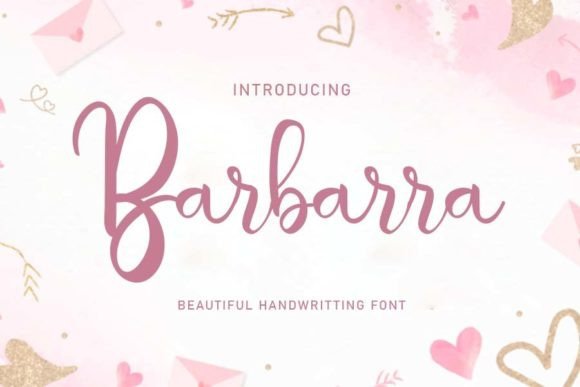
Discover the Elegance of Barbarra Font: Elevate Your Designs with this Beautiful Handwritten Typeface
In the world of typography, few fonts manage to capture the essence of elegance and femininity as beautifully as the Barbarra Font. This stunning handwritten typeface is a gem for designers and crafters looking to add a touch of sophistication and charm to their projects. Whether you’re creating logos, invitations, blogs, or simply want to make a striking headline, Barbarra Font is an excellent choice. In this article, we’ll dive into the details of what makes Barbarra Font special and how you can incorporate it into your creative endeavors.
The Beauty of Barbarra Font
Barbarra Font is characterized by its flowing, cursive script that exudes a sense of grace and refinement. Its elegant strokes and beautiful letterforms make it a versatile font suitable for a wide range of applications. From wedding invitations and event posters to blog headers and branding, Barbarra Font adds a touch of class and sophistication that can elevate your designs to a new level.
Key Features of Barbarra Font
- Feminine and Elegant: The font’s design is deeply rooted in traditional calligraphy, offering a feminine touch that’s perfect for projects requiring a graceful look.
- Versatile: While it shines in logos and invitations, its legibility and style also make it suitable for headlines, quotes, and short paragraphs.
- Handwritten: The organic, handwritten nature of Barbarra Font gives it a personal and unique feel that can make your designs stand out.
- Easy to Read: Despite its elegant and cursive nature, Barbarra Font maintains a high level of readability, making it a practical choice for digital and print media.
Using Barbarra Font in Your Designs
Incorporating Barbarra Font into your projects is straightforward, thanks to its compatibility with various design software and platforms. Here are some ideas on how to make the most of this beautiful font:
Logos and Branding
For businesses or personal brands aiming to convey elegance and sophistication, Barbarra Font can be a fantastic choice for a logo. Its unique and memorable appearance can help your brand stand out in a crowded market.
Invitations and Event Materials
Whether you’re planning a wedding, a birthday party, or any other event, Barbarra Font can add a touch of luxury and personalization to your invitations and event materials.
Blogs and Digital Content
For bloggers and content creators, using Barbarra Font for headings or even body text can enhance the visual appeal of your website or social media posts, making your content more engaging to readers.
Tips for Working with Barbarra Font
- Pair it Wisely: When using Barbarra Font in your designs, consider pairing it with a simpler, sans-serif font for body text to create contrast and ensure readability.
- Adjust Size and Color: Don’t be afraid to experiment with different sizes and colors to find the perfect combination that makes your design pop.
- Consider the Medium: Keep in mind the medium in which your design will be viewed. For digital use, ensure the font size is readable on various devices. For print, consider the resolution and paper quality.
Barbarra Font is more than just a typeface; it’s a design element that can transform your projects with its elegance and charm. Whether you’re a professional designer or a DIY enthusiast, this beautiful handwritten font offers endless possibilities for creativity and expression. By incorporating Barbarra Font into your designs, you’re not just choosing a font; you’re adding a statement piece that can make your work truly unforgettable.
So, why settle for ordinary when you can make your designs extraordinary with Barbarra Font? Explore its potential, experiment with its versatility, and watch as your creations take on a new level of sophistication and appeal.